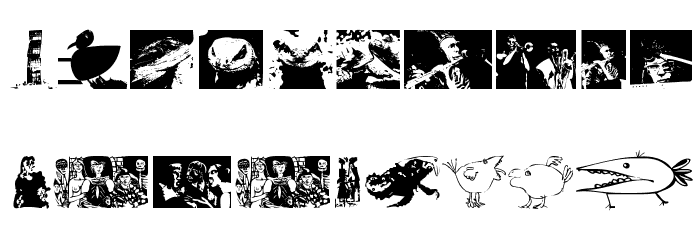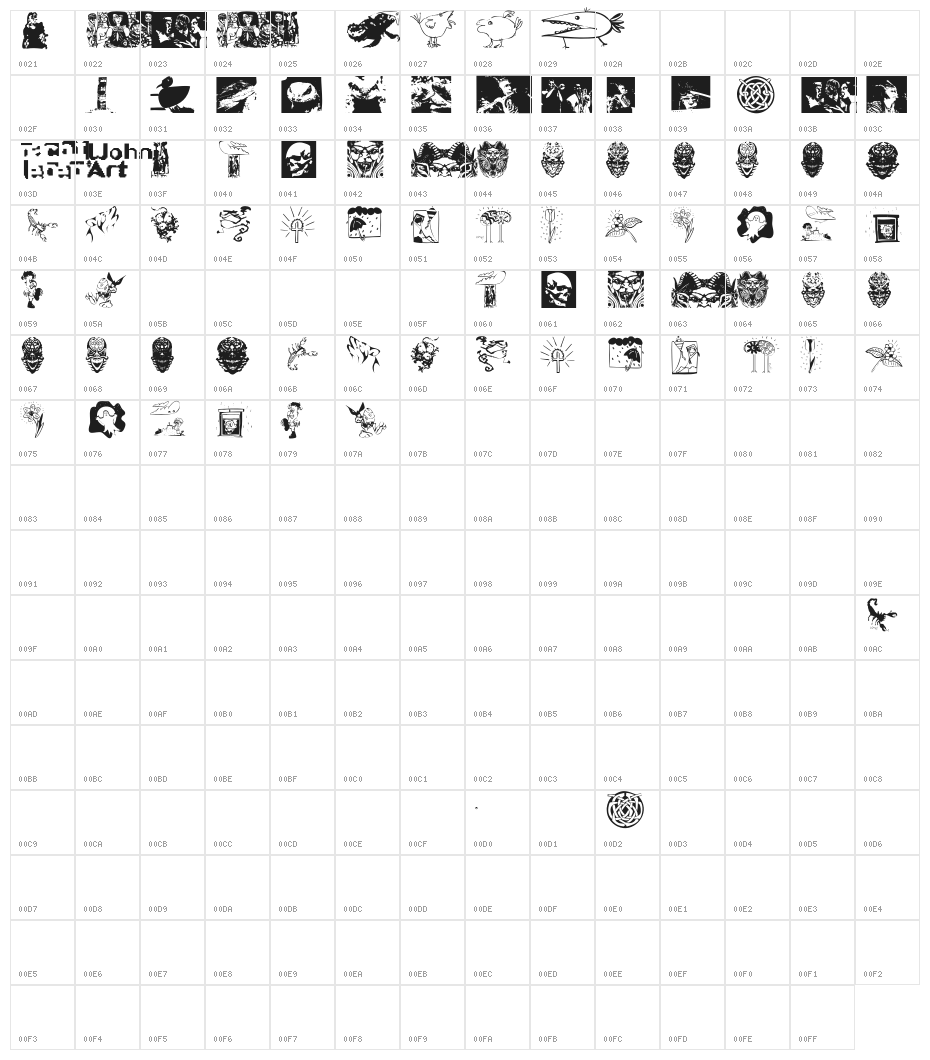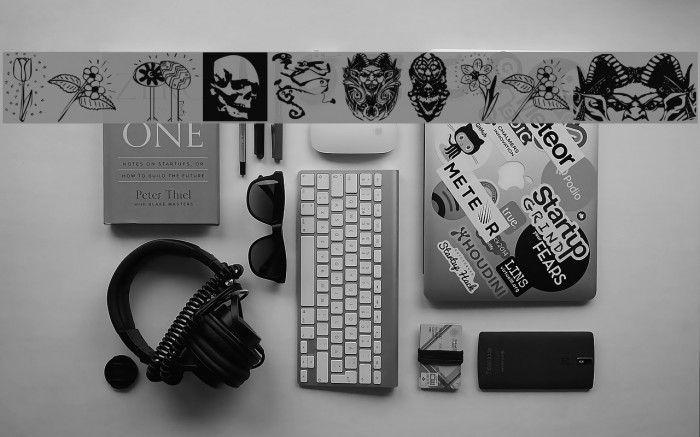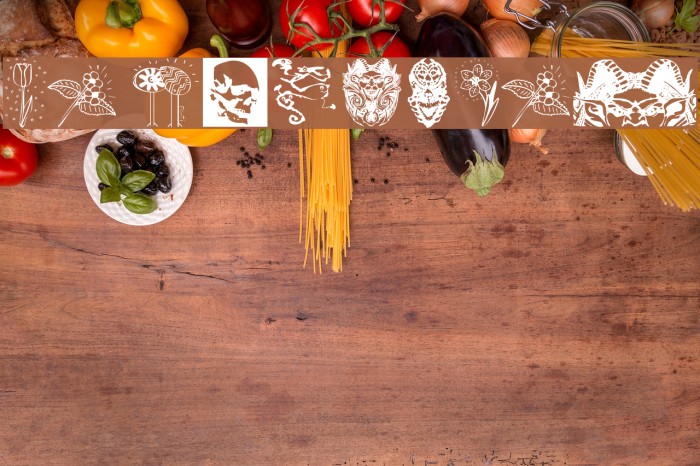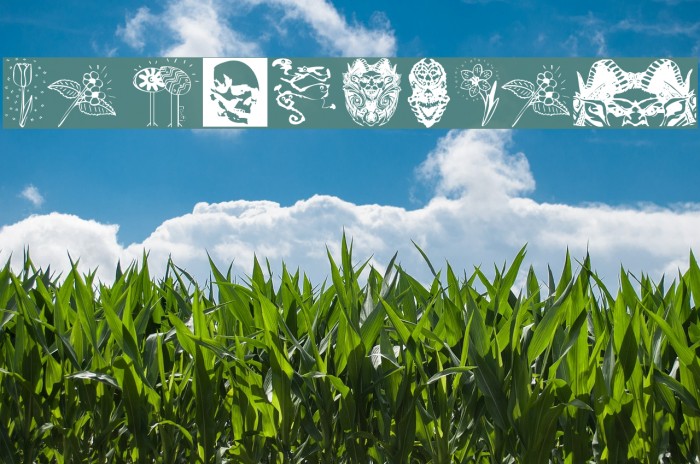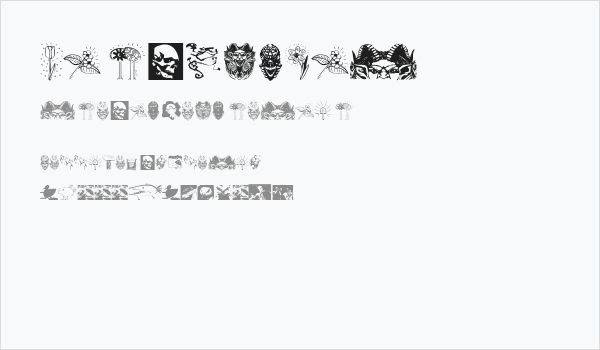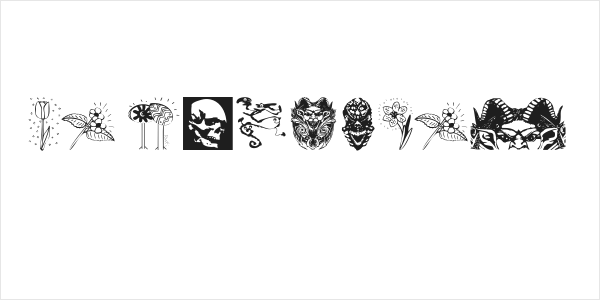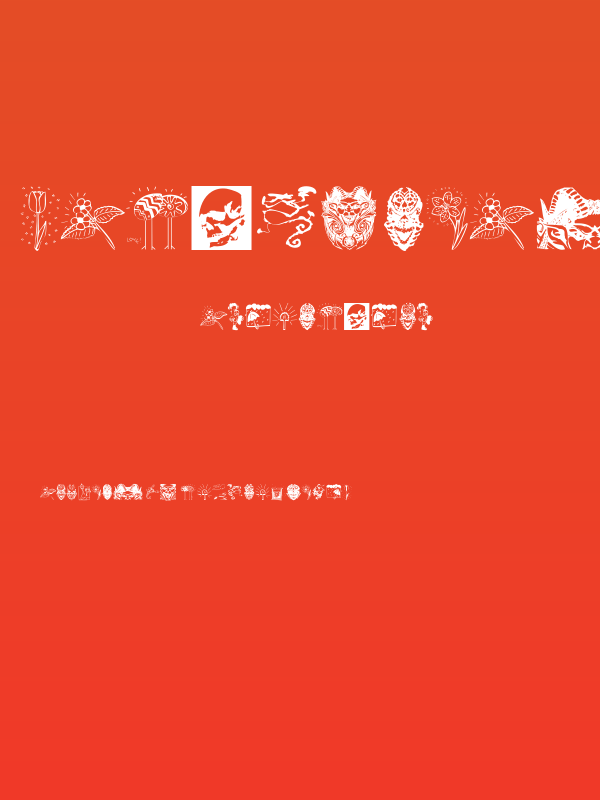
StrandgutC Font
StrandgutC Description
A highly decorative dingbat font featuring a variety of detailed illustrations, including masks, animals, faces, and whimsical scenes. Each character is represented by a unique pictorial graphic rather than traditional alphanumeric glyphs.
| Overall Style | Decorative, Whimsical, Artistic |
| Use Case | Illustrative elements, icons, creative design accents |
| Proposed Projects | Posters, album covers, zines, comic books, creative branding, art projects, decorative borders. |